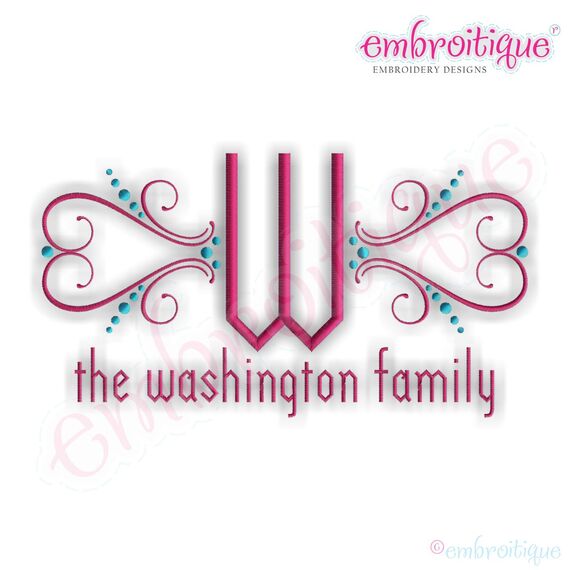
Westwood Font Frame - Small
This is such a unique font frame! Perfect for adding family names, initials and so much more! Also available in larger sizes. Pictured with our Washington Monogram Set coming soon! (Monogram set is sold separately.)